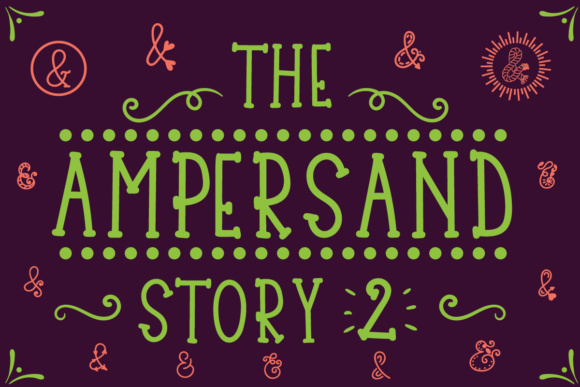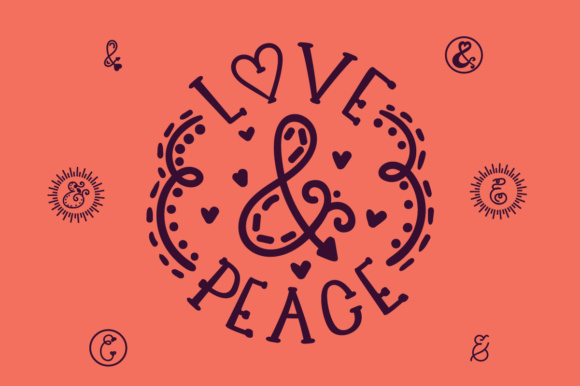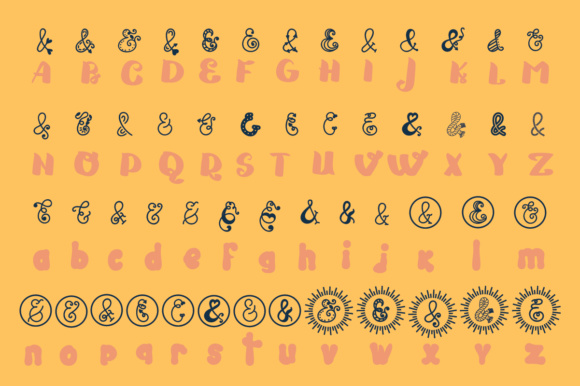
The Ampersand Story 2 Font
About The Ampersand Story 2 Font
The Ampersand Story 2 is a collection 57 beautifully hand-drawn ampersands.
Each one is completely unique, and comes in it’s own style. Perfect for adding as an embellishment in your project.